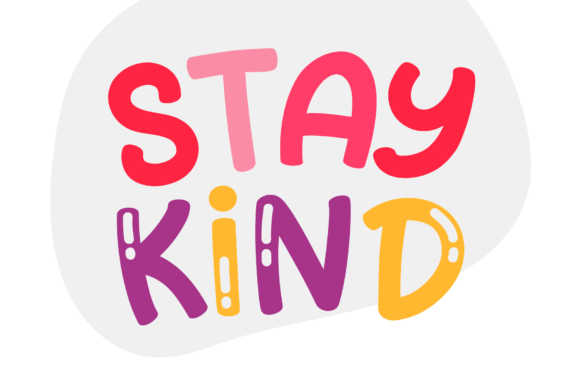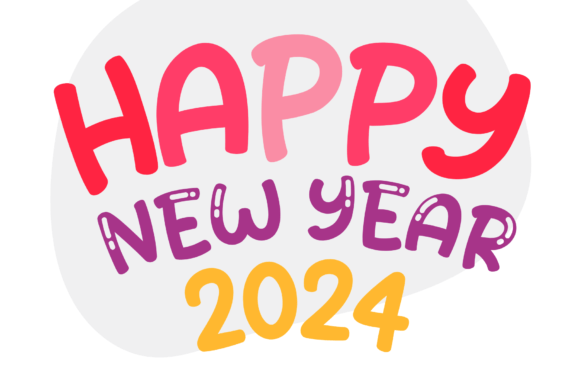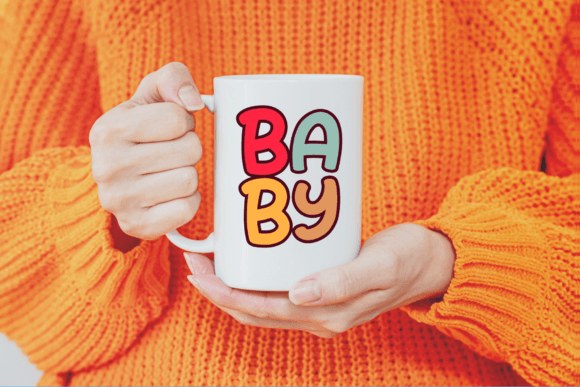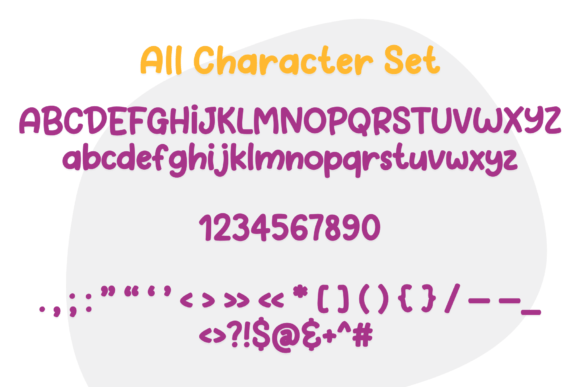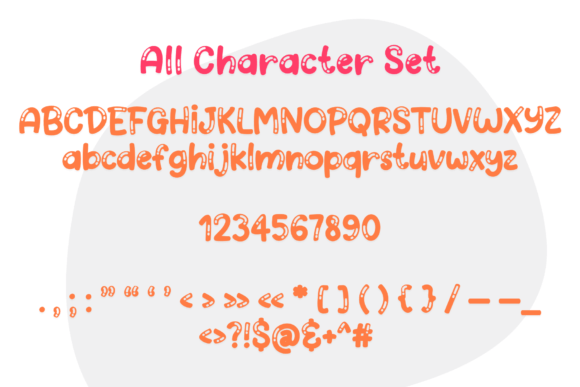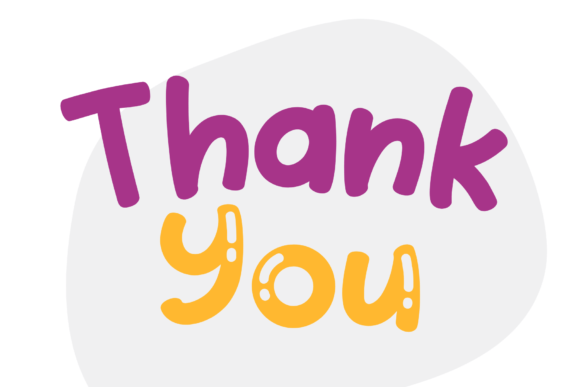
Introduction to Hello Grimm Font Font
Fonts play a crucial role in design, and the Hello Grimm Font font is a typeface that brings both character and versatility to any project. Whether you’re working on a branding project, a website, or a print design, the Hello Grimm Font font offers a unique style that can elevate your work.
Hello Grimm is a funny decorative font.
It embodies playfulness and authenticity and is the perfect choice for all your favorite projects such as blog posts, logos, branding, ads, invitations, greeting cards, planners, photo albums, decorations, and more Add it to any of your designs, and enjoy the results.
Key Features of Hello Grimm Font Font
Why Choose Hello Grimm Font Font?
The Hello Grimm Font font is more than just a typeface – it’s a design tool that helps you communicate your message with style and clarity. Its unique character set and versatile design make it suitable for a wide range of applications, from elegant invitations to bold headlines.
With its carefully crafted letterforms and balanced proportions, the Hello Grimm Font font ensures readability and visual appeal across all mediums.
What makes Hello Grimm Font font special?
The Hello Grimm Font font stands out with its unique design, exceptional readability, and versatility across various design applications.